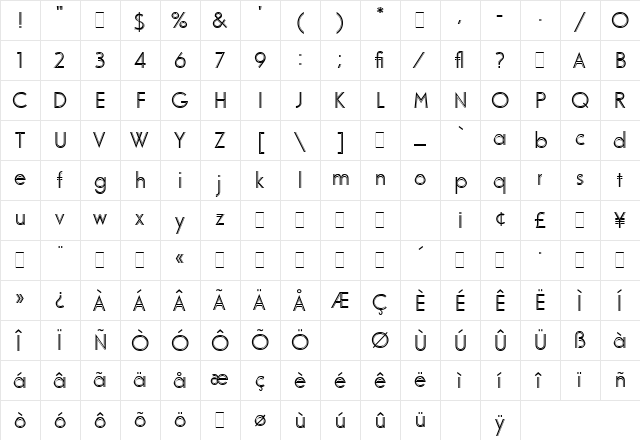
Odessa LET Plain
Design Context for Odessa LET Typeface
Odessa LET offers clean, dependable letterforms without strong stylistic allegiance, making it a practical choice for designers who need flexibility.